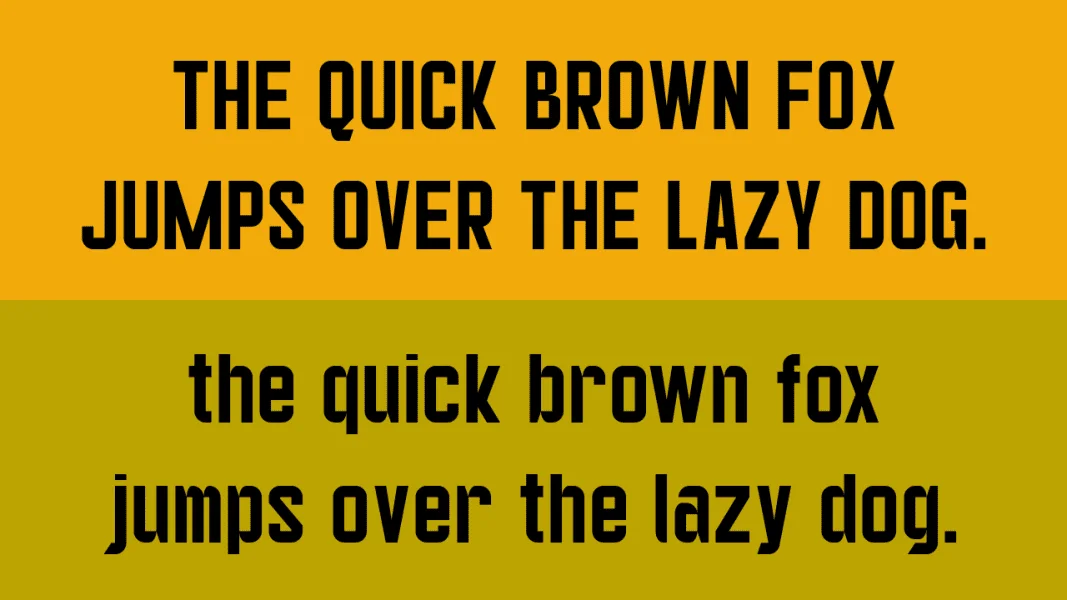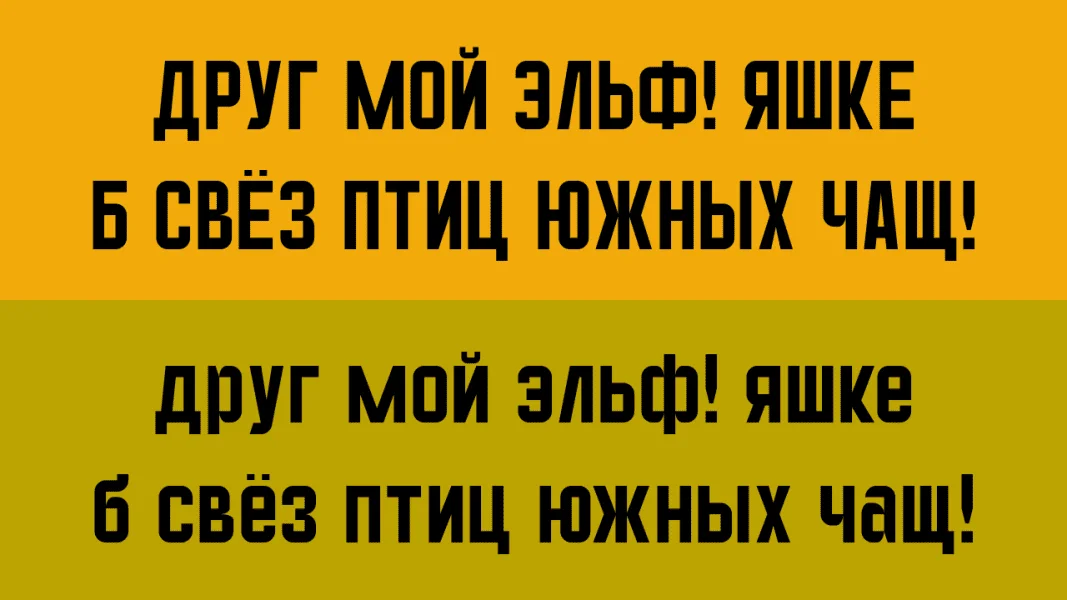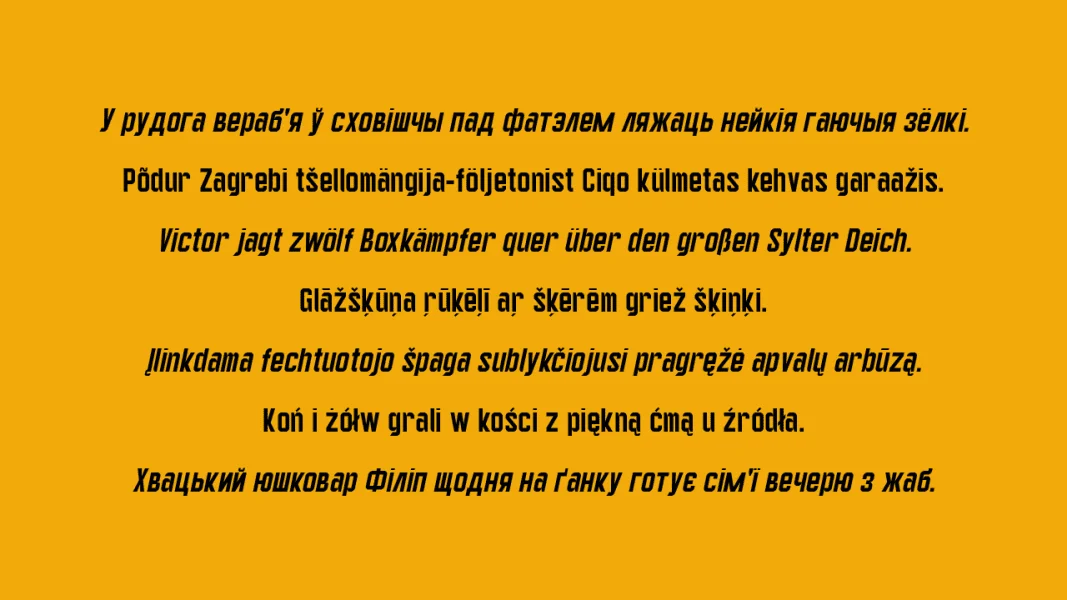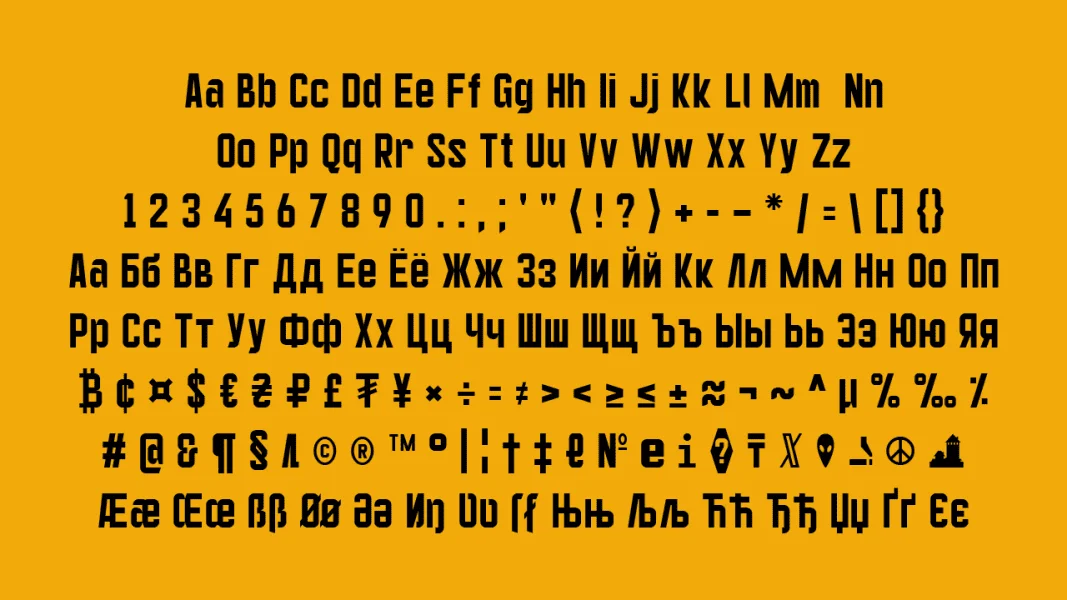
Sagewold is a condensed sans-serif display typeface with a sturdy, block-like construction. It features a tall, vertical rhythm and a compact texture, characterized by its flat-sided curves and sharp, angular terminals. The design balances industrial, geometric rigidity with subtle, organic warmth, giving it a commanding yet approachable presence. Its uniform stroke weight and tight spacing create a solid, architectural feel that stands out in any layout.
This typeface is exceptionally well-suited for bold editorial headlines, poster designs, and striking packaging concepts. Its condensed proportions make it an excellent choice for space-conscious layouts, such as book covers, website headers, and modern branding projects that require a strong, structured typographic voice.